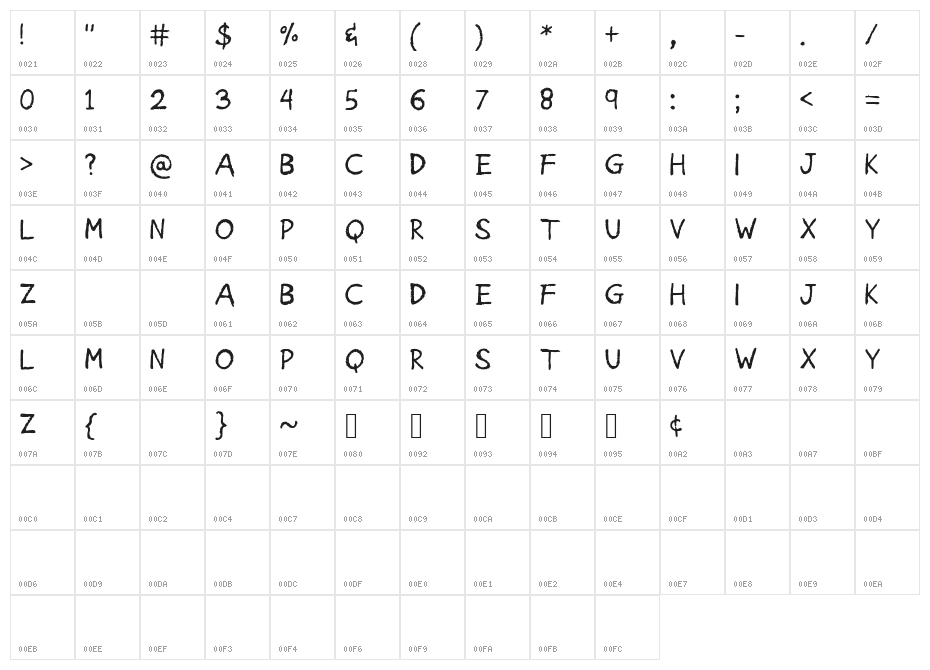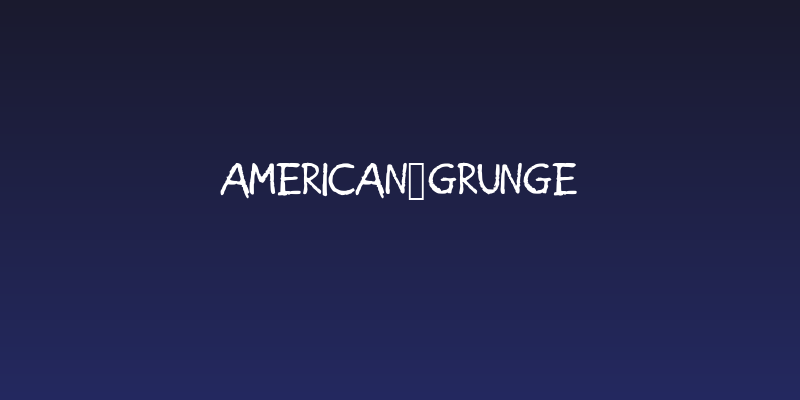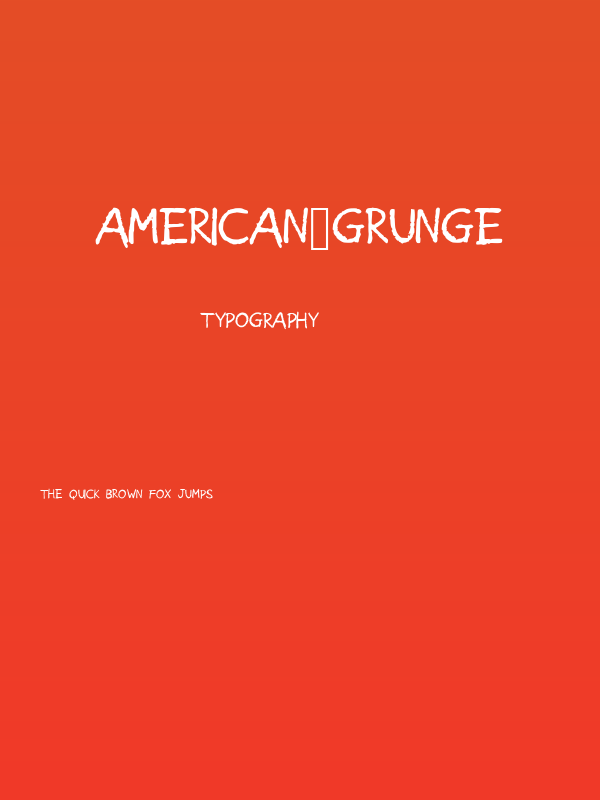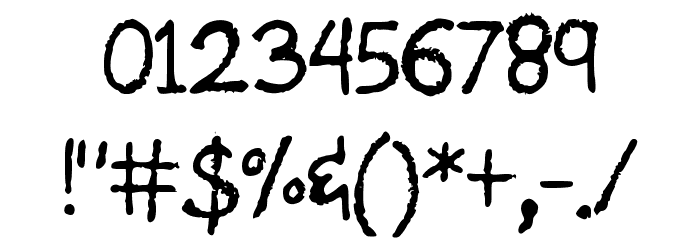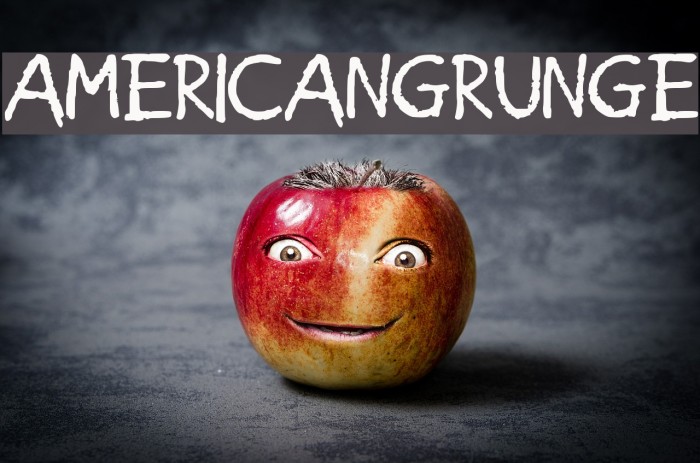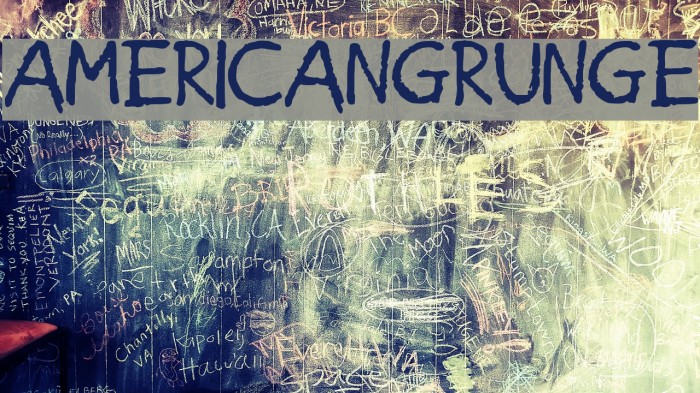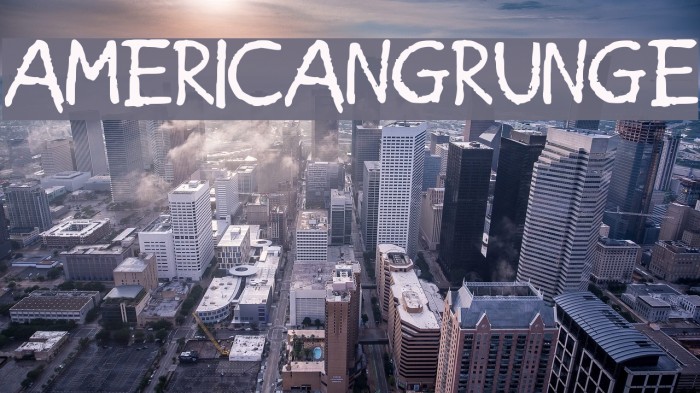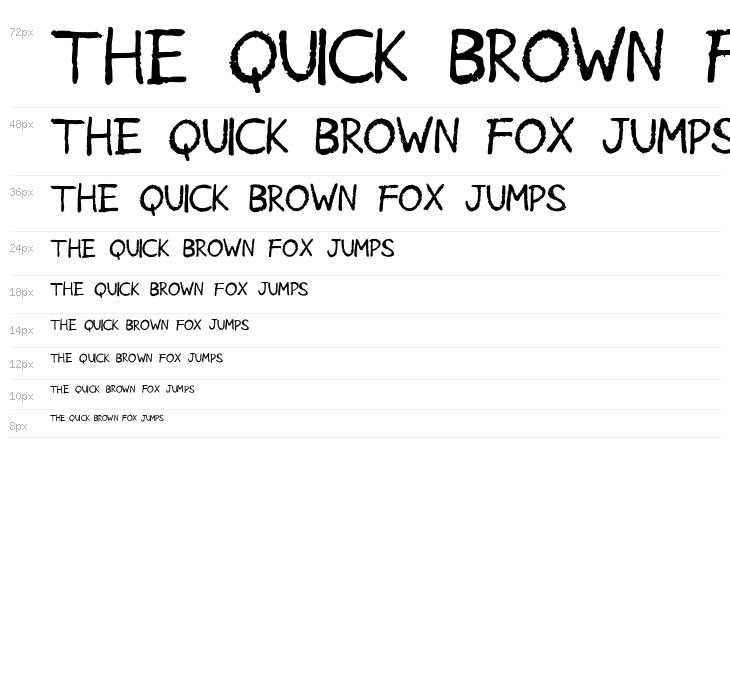
American_Grunge Font
American_Grunge Description
This font exudes a rugged and distressed aesthetic, reminiscent of grunge and punk rock styles. The characters appear hand-drawn, with uneven edges and a slightly rough texture that gives them a raw, authentic feel. The uppercase and lowercase letters maintain a consistent style, with a bold presence that stands out. Numbers and special characters follow the same design ethos, contributing to a cohesive look. This font captures a sense of rebellion and nonconformity, making it ideal for projects that require a bold, edgy statement.
| Overall Style | Grunge, Edgy |
| Proposed Projects | Album covers, posters, streetwear branding, and edgy graphic designs. |